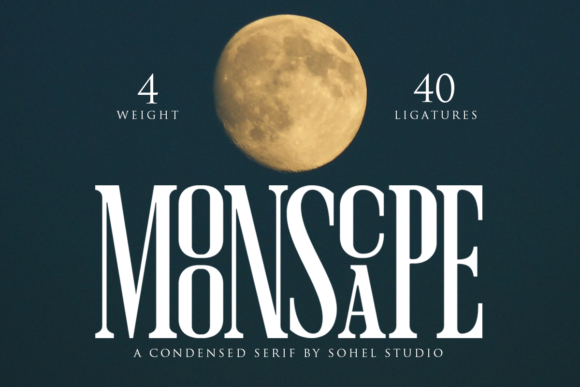
In a world clamoring for authenticity, the Moonscape Font emerges as a radiant beacon of vintage charm, beckoning you to embark on a nostalgic journey. Its bold strokes, reminiscent of forgotten eras, carry the weight of stories waiting to be told.
Crafted with precision by the skilled artisans at Sohel Studio, Moonscape is a testament to the enduring power of classic serif fonts. Its seamless blend of elegance and modernity makes it the perfect choice for product packaging, branding projects, magazine covers, and social media campaigns. Whether you seek to create an unforgettable logo, evoke emotions through heartfelt letters, or simply add a touch of timeless sophistication to your designs, Moonscape stands ready to elevate your creative vision.
With its PUA encoding, Moonscape grants you effortless access to a treasure trove of glyphs and swashes, empowering you to unleash your creativity without limits. Transform ordinary text into captivating works of art, where each letter dances with grace and purpose.
Indulge in the allure of Moonscape, a font that transcends the boundaries of time, effortlessly bridging the gap between the past and the present. Embrace its vintage warmth and allow your designs to radiate with an aura of nostalgia and sophistication.